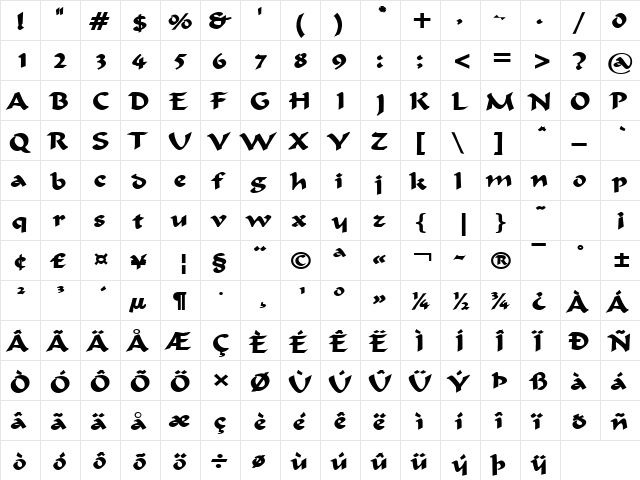
FlatBrush-Extended Bold Font Preview
FlatBrush-Extended Bold
Design Context for FlatBrush-Extended Typeface
FlatBrush-Extended brings a calligraphic fluidity to the page — its connecting strokes and expressive curves give it an unmistakably human quality. The heavy weight commands attention and anchors typographic hierarchies.
Font Pairing: Combine FlatBrush-Extended with a simple geometric sans for maximum contrast — the tension between flowing curves and clean structure is a classic typographic pairing.
Pro Tip: Use FlatBrush-Extended for short runs of text — names, titles, or taglines. Extended body copy in script faces tires the eye quickly.